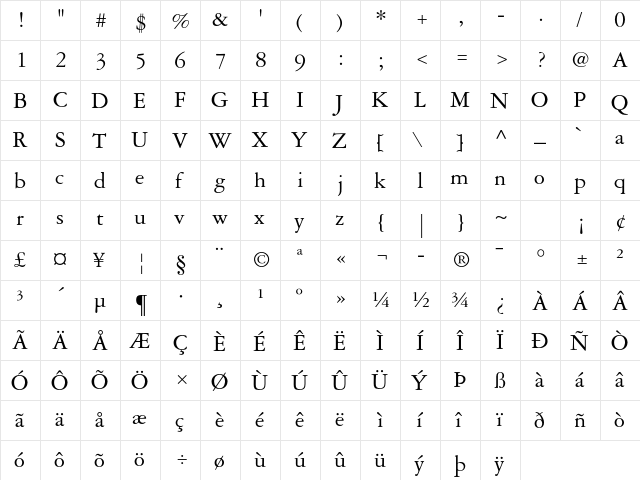
Garamond 3 LT Std Regular
| Designer | Morris Fuller Benton, Thomas Maitland Cleland |
Design Context for Garamond 3 LT Std Typeface
Garamond 3 LT Std takes a measured approach to typography — its balanced proportions and neutral character make it a reliable workhorse for both digital and print work. Its slender proportions lend an understated elegance to any composition.